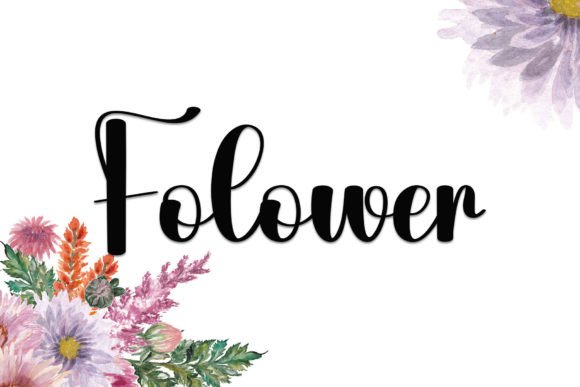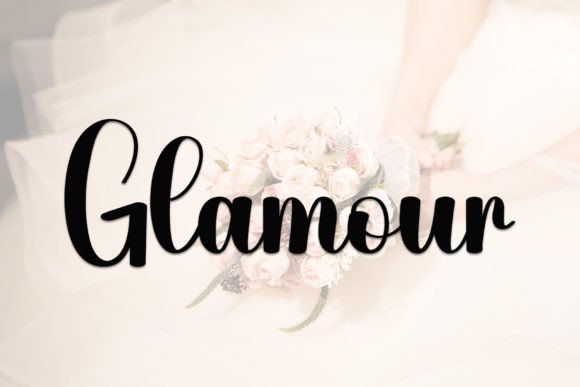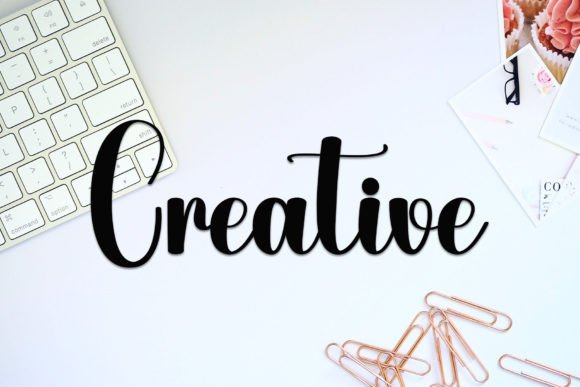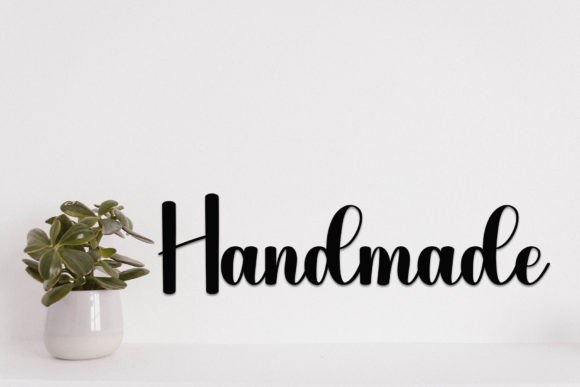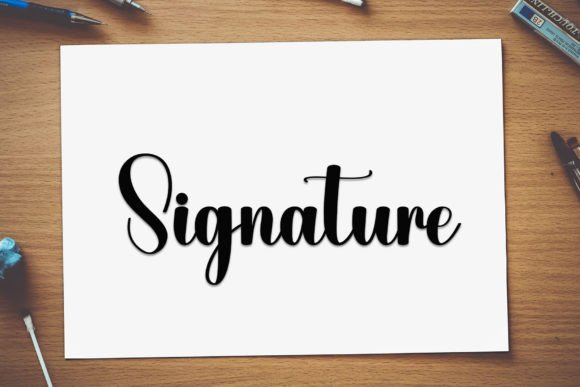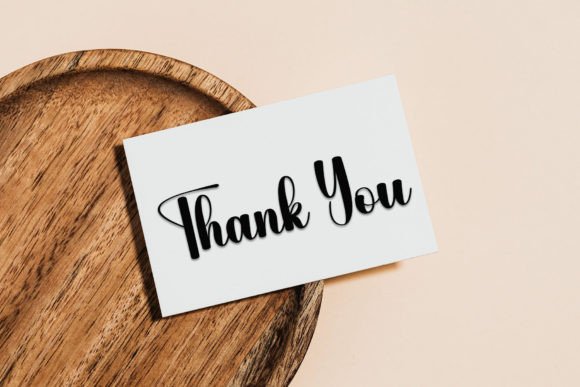
Introducing Daylight Font: Elevate Your Designs with Timeless Elegance
In the world of typography, a font can make or break a design. For designers and crafters seeking to add a touch of sophistication and style to their projects, Daylight Font is an exceptional choice. This stunning handwritten font boasts a contemporary atmosphere, impeccable form, and a classic calligraphy-inspired aesthetic that will elevate your work to new heights.
The Inspiration Behind Daylight Font
Daylight Font draws inspiration from timeless classic calligraphy, bringing a sense of tradition and elegance to the table. The creator of this beautiful font has successfully blended the charm of the past with the flair of modern design, resulting in a typeface that is both balanced and varied. This thoughtful design approach ensures that Daylight Font can be used across a wide range of projects, from elegant branding and advertising materials to beautiful stationery and crafts.
Key Features of Daylight Font
- Contemporary yet Classic: The font strikes the perfect balance between modern style and classic elegance. Its contemporary atmosphere makes it suitable for modern designs, while its classic roots ensure it will never go out of fashion.
- Handwritten with Flair: Daylight Font is a handwritten typeface with a natural, effortless feel. It brings a personal touch to any project, making it ideal for designers looking to add a bit of character and personality to their work.
- Versatility: The balanced and varied design of Daylight Font makes it incredibly versatile. It can be used for a wide array of projects, including but not limited to, logos, business cards, social media graphics, and product packaging.
Enhance Your Projects with Daylight Font
Whether you’re a professional designer or a crafty DIY enthusiast, Daylight Font has the potential to transform your projects. Its elegant and stylish appearance can add a layer of sophistication to any design, making it stand out in a crowded marketplace. Here are a few ways you can use Daylight Font to enhance your projects:
- Branding and Logos: Create a lasting impression with a logo that exudes elegance and style. Daylight Font is perfect for crafting unique and memorable brand identities.
- Stationery and Invitations: Add a touch of class to your stationery, invitations, and greeting cards. The font’s beautiful calligraphy-inspired letters will make any correspondence feel special.
- Digital and Print Advertising: Stand out in the digital space or print media with eye-catching ads that utilize the distinctive charm of Daylight Font.
- Crafts and DIY Projects: If you’re into crafting or DIY projects, Daylight Font can help you add a professional and stylish touch to your handmade goods, such as labels, tags, and more.